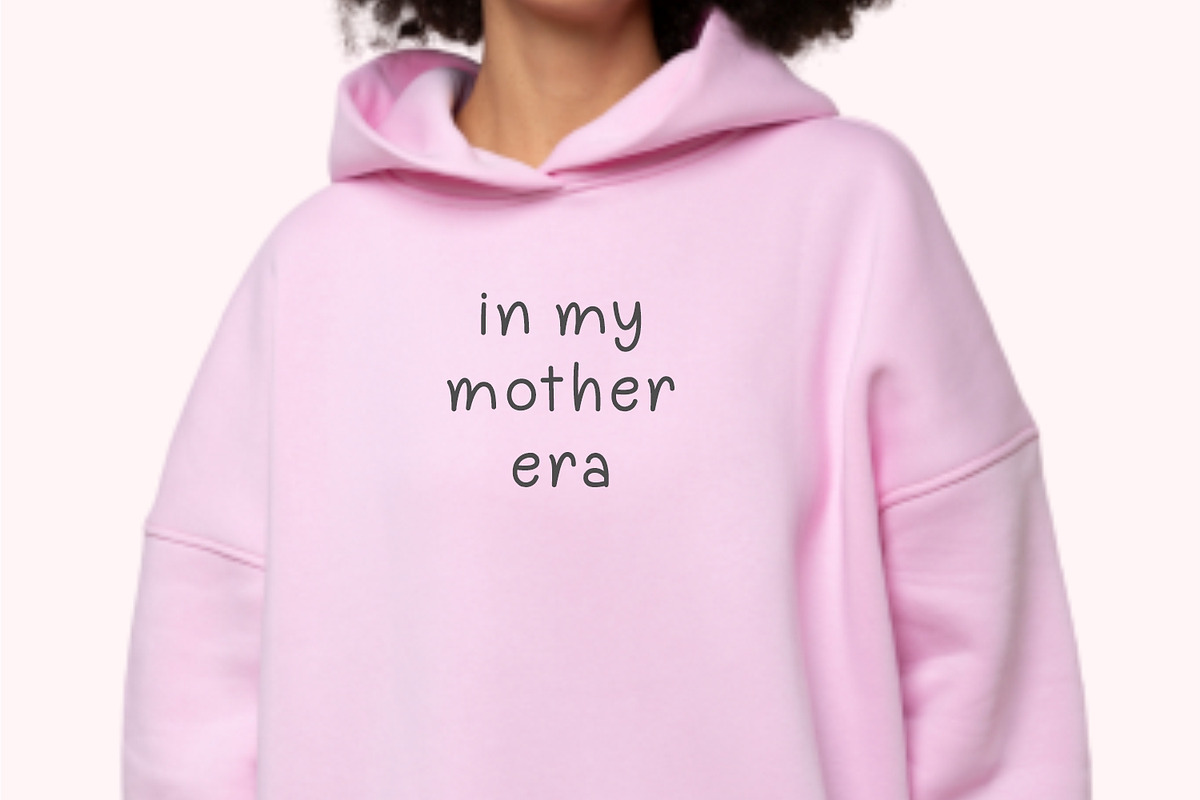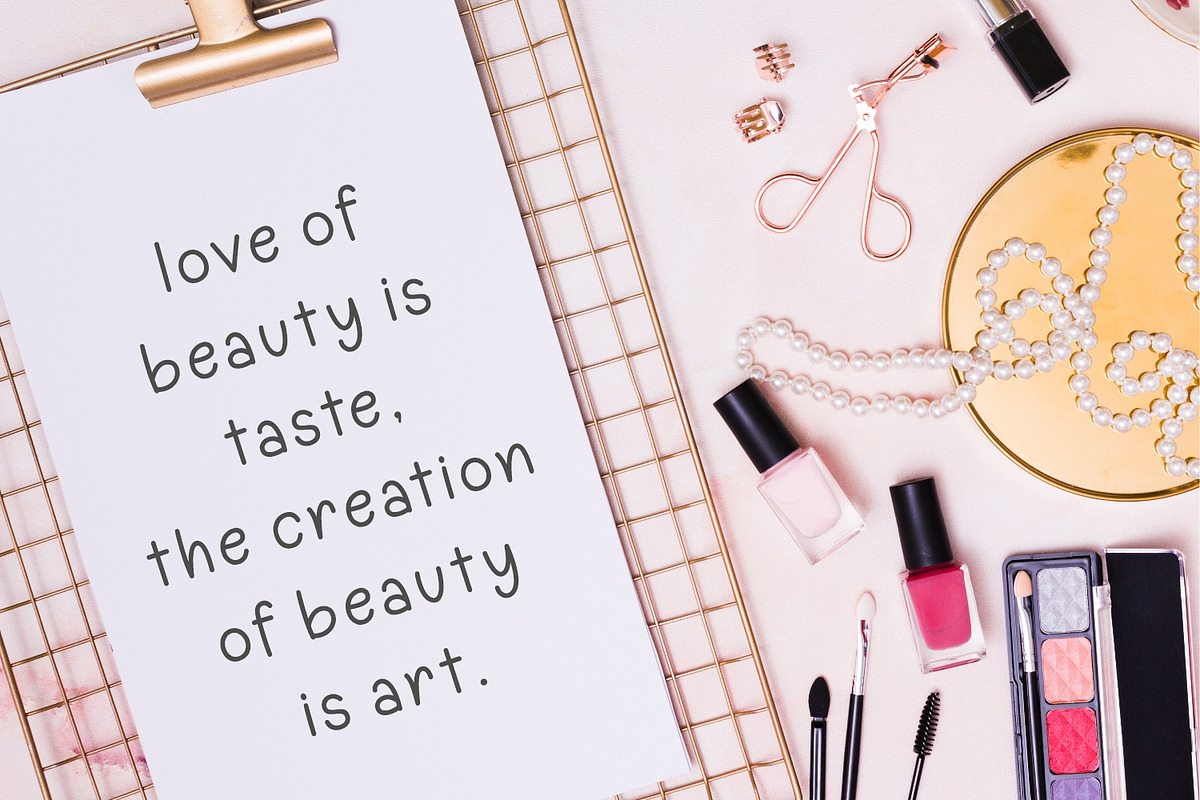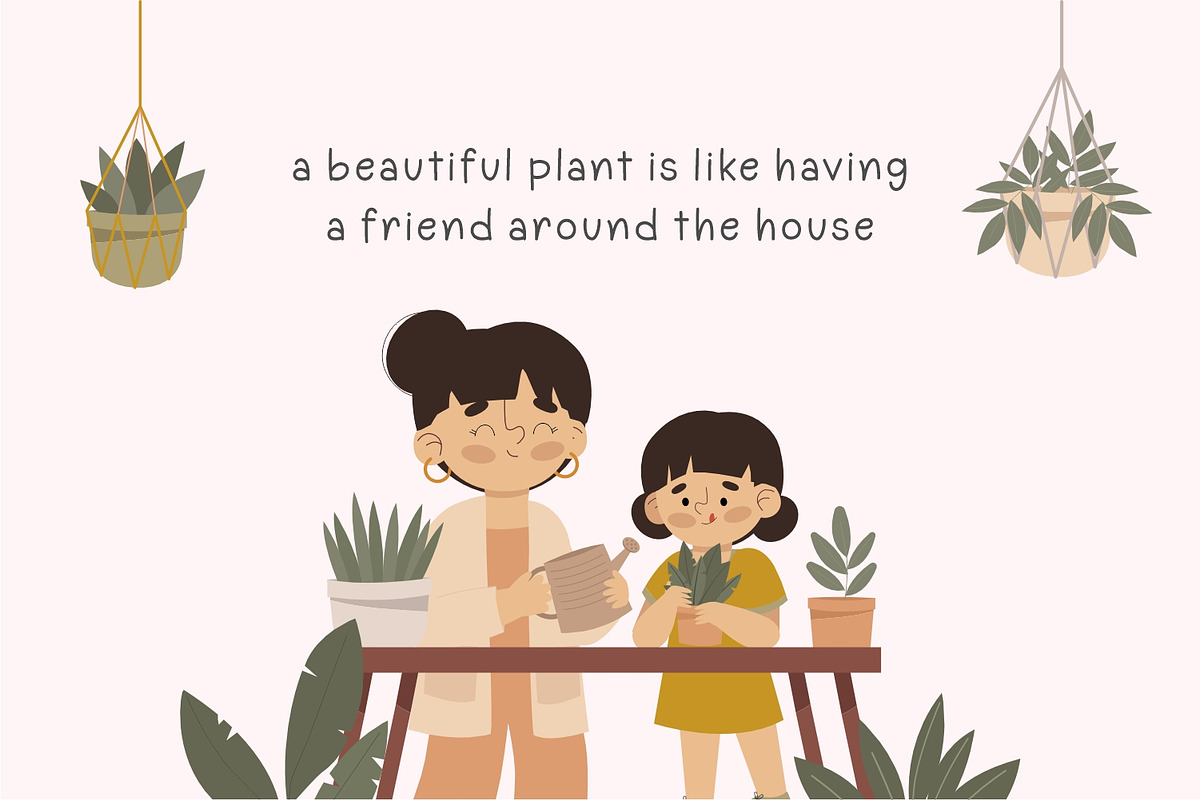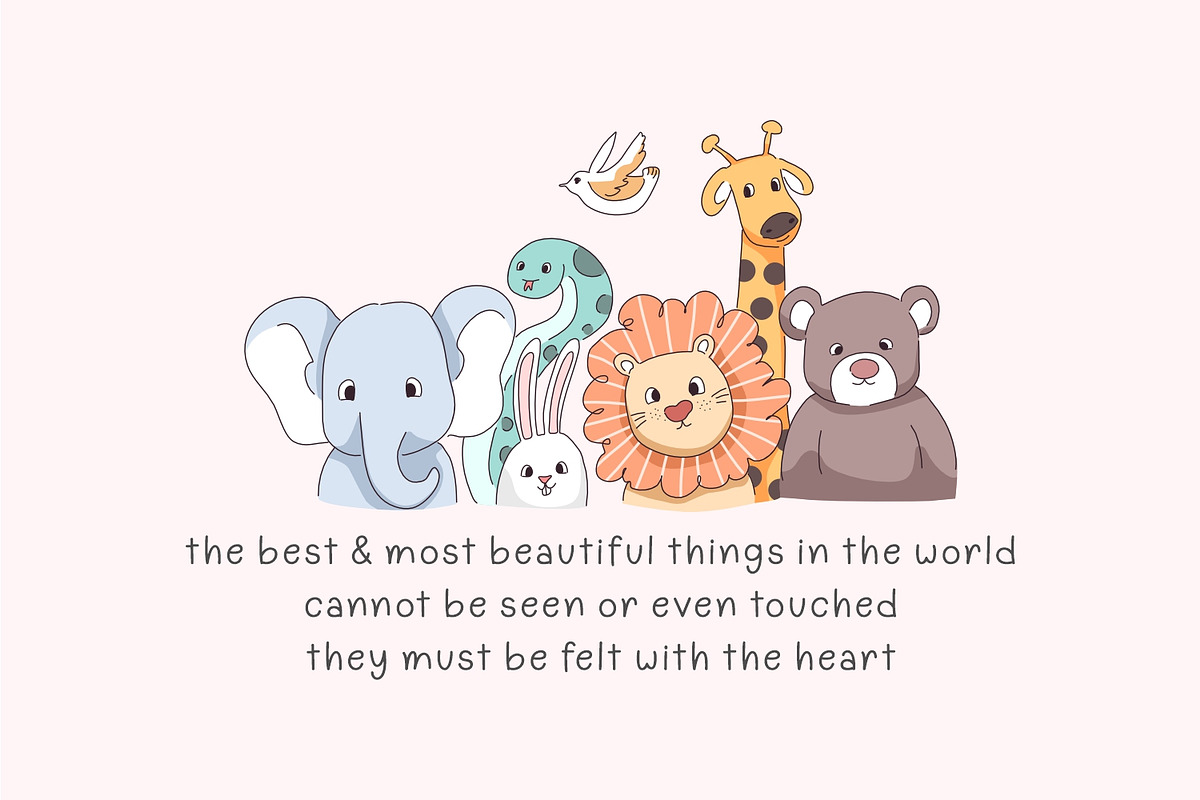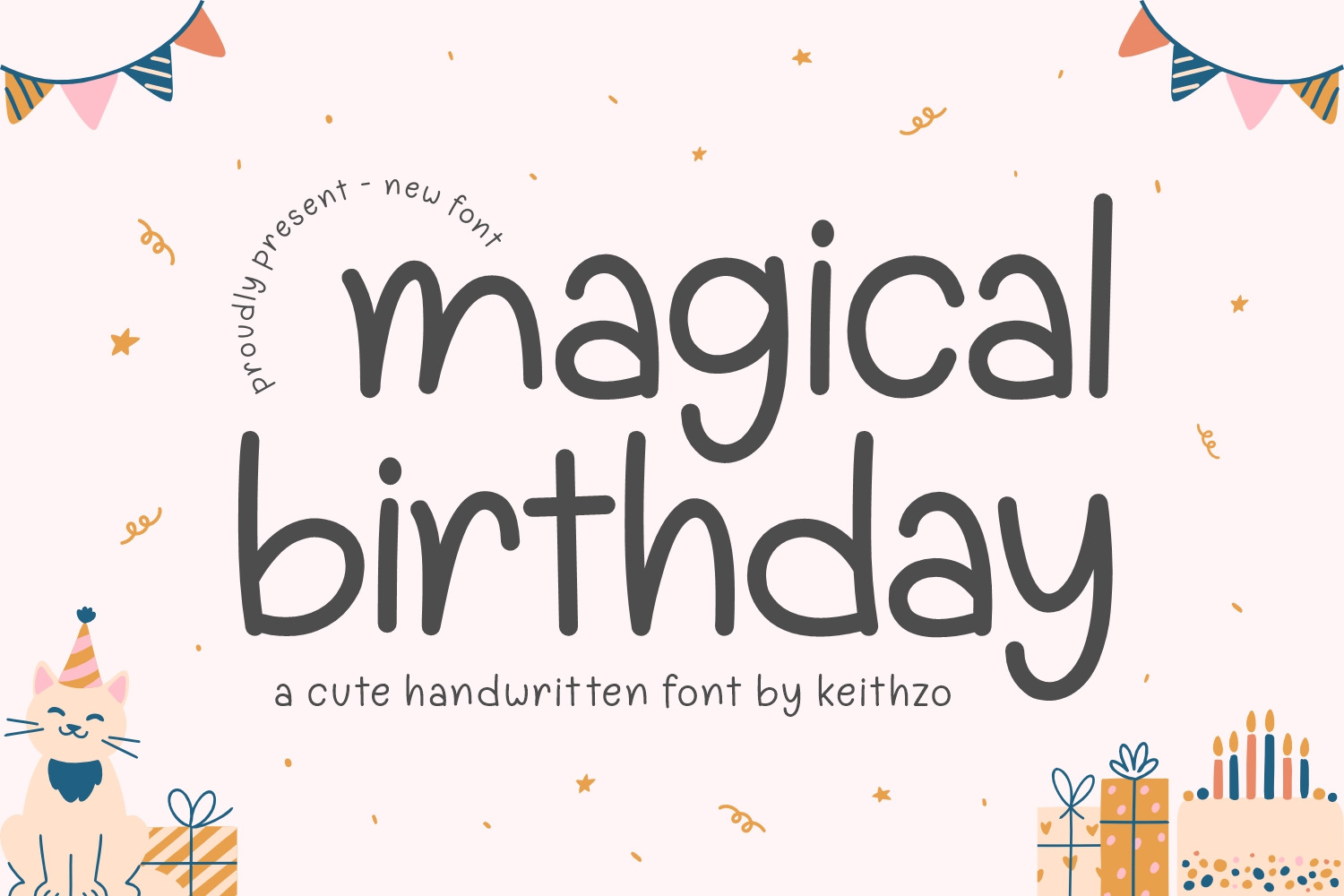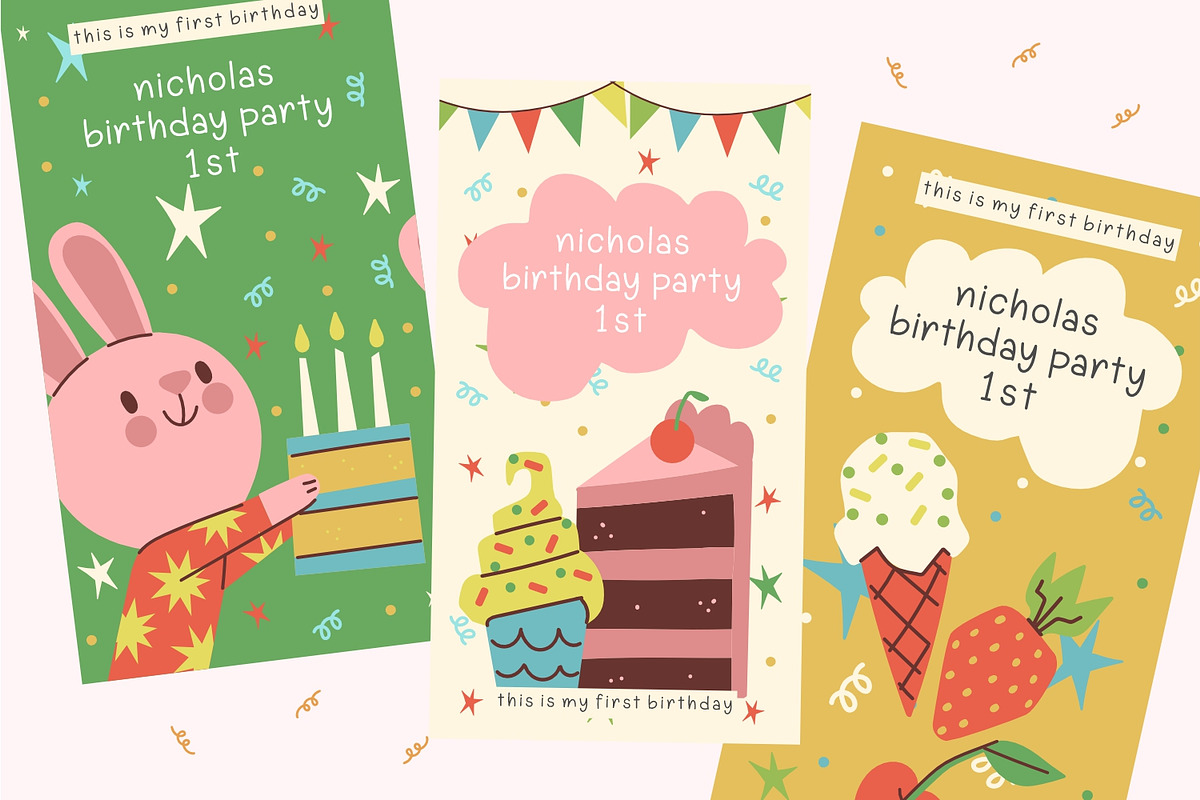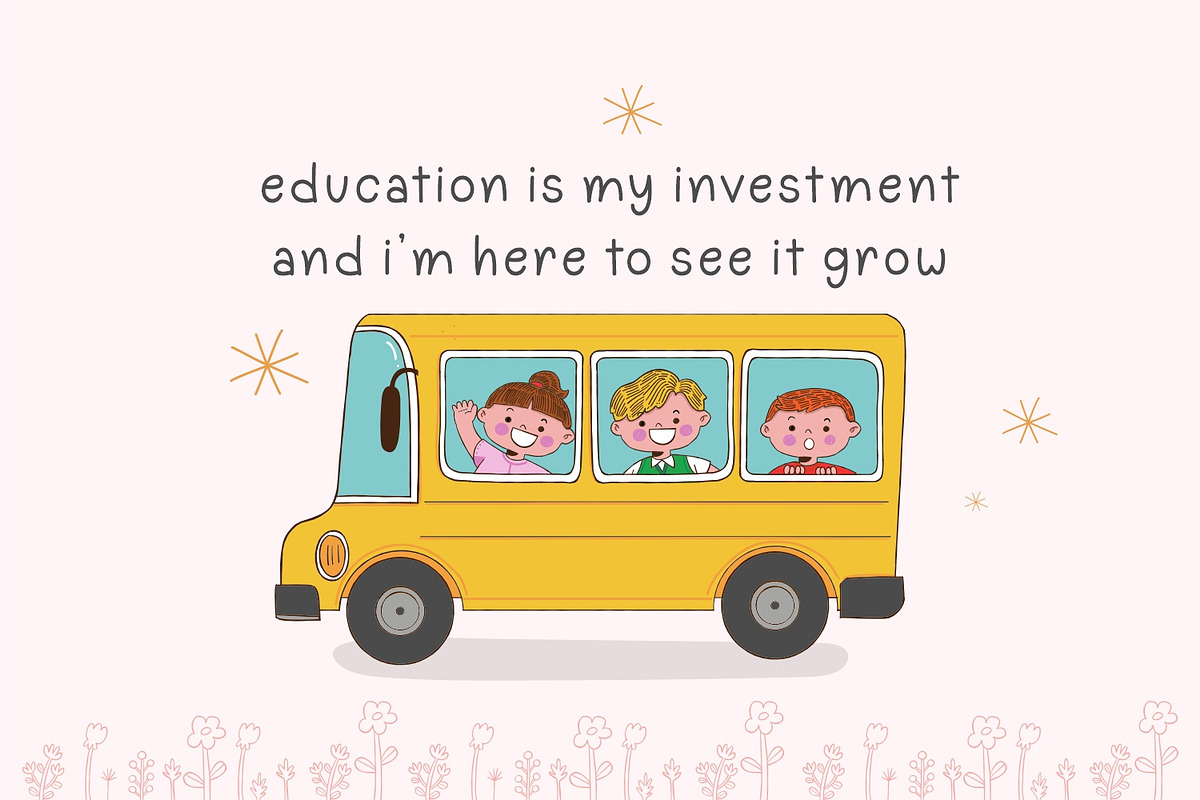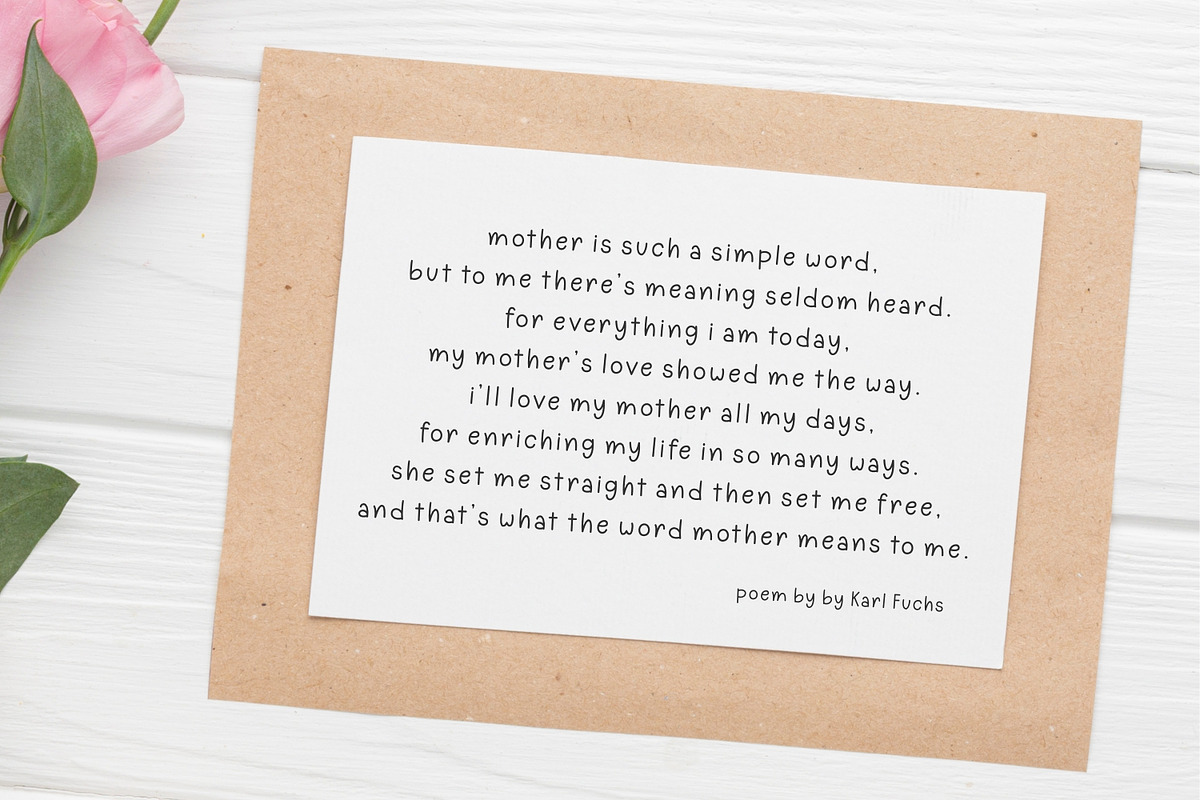
Magical Birthday - Handwritten Font
Discover a delightful pathway to creativity with Magical Birthday, a charming handwritten font. Ideal for diverse design endeavors, it effortlessly enhances best friend greeting cards, infuses an intimate touch into love letters for mom, or adds a personal inscription to birthday invitations. Unleash the font’s potential on an array of merchandise like t-shirts and hoodies, or bring a customized sophistication to home decor pieces. Magical Birthday isn’t limited to just personal projects, its ethos extends to daily notes or the promotional materials for schools, where it introduces a unique twist. Empower your designs with Magical Birthday – a font that’s as versatile as your imagination.